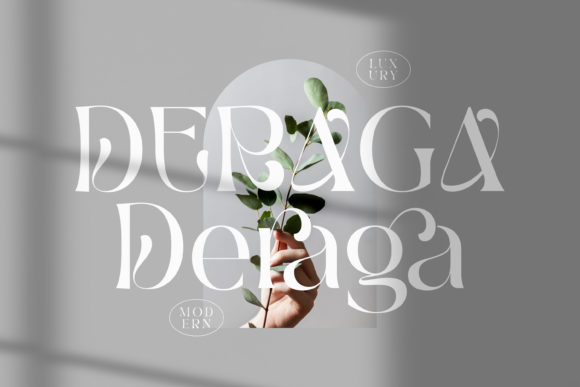
Welcome to the world of Deraga, a timeless serif font family that dances with elegance, exuding sophistication in every stroke. Its PUA-encoded charm allows for effortless access to a treasure chest of glyphs and swashes, granting you the creative freedom to paint your ideas in a symphony of style.
Slip into the allure of Deraga's incredibly versatile nature, a font that adapts like a chameleon to any design canvas you lay it upon. From the delicate curves of wedding invitations to the bold statements of branding projects, Deraga weaves its magic, transforming your creations into masterpieces.
Feel the heartbeat of your designs quicken as Deraga's enchanting swashes take center stage, adding a touch of whimsical flair. Like a playful dance across the page, these swashes infuse your work with an irresistible charm that captivates the eye and leaves a lasting impression.
Immerse yourself in the world of packaging design with Deraga as your fearless ally. Let your imagination soar as you craft packaging that speaks volumes, carrying your products with an air of distinction. Deraga's unwavering presence ensures that your designs stand out from the crowd, attracting attention like a magnet.
With Deraga as your creative companion, discover a font that empowers you to weave tales of elegance and finesse into every design endeavor. Unlock the gateway to a world where beauty and functionality intertwine, where your creations blossom into exquisite works of art.